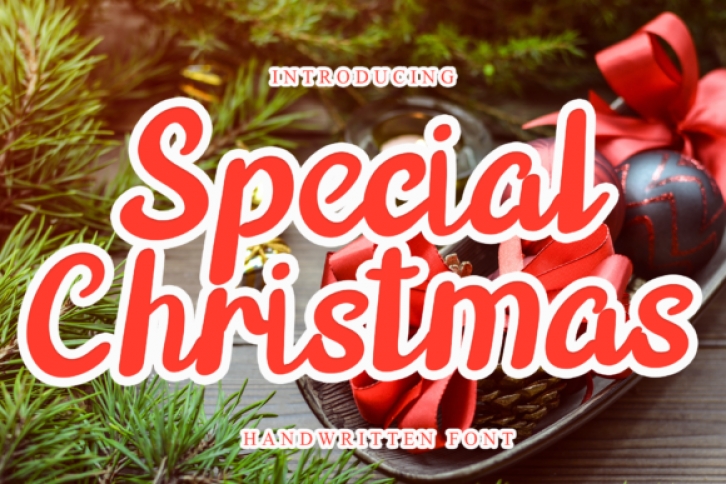
Special Christmas is a bold and eye-catching handwritten font. This font will look outstanding in any context, whether it’s being used on busy backgrounds or as a standalone headline!